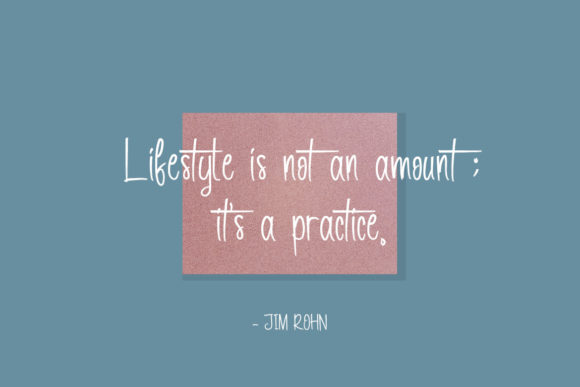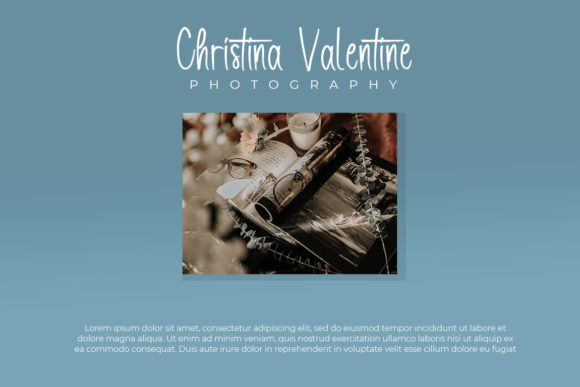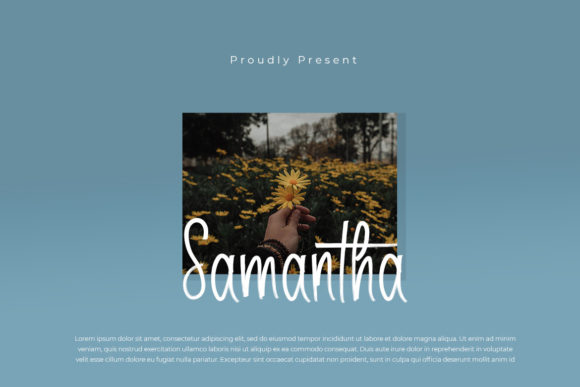
Introduction to Ramonety Font
Ramonety is a cute and thin lettered, brushed handwritten font.
Its authentic look will add a personal and realistic feel to your designs The only limit is your imagination.
Key Features of Ramonety Font
Why Choose Ramonety Font?
Ramonety Font offers exceptional quality and versatility, making it a valuable addition to your design toolkit. Whether you’re creating for personal projects or commercial use, Ramonety Font delivers professional results.